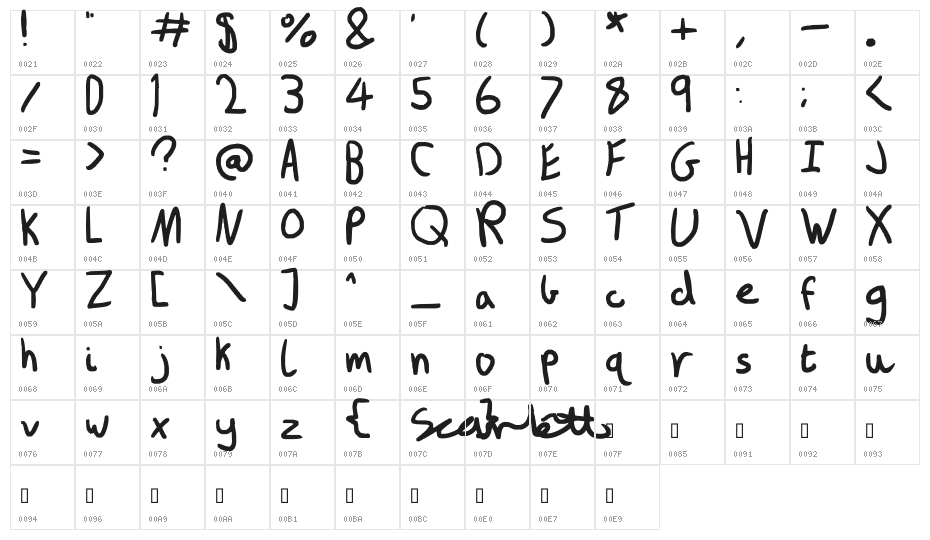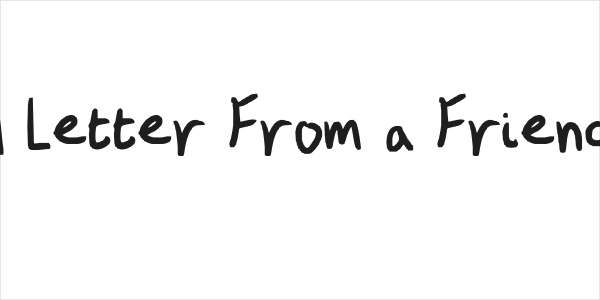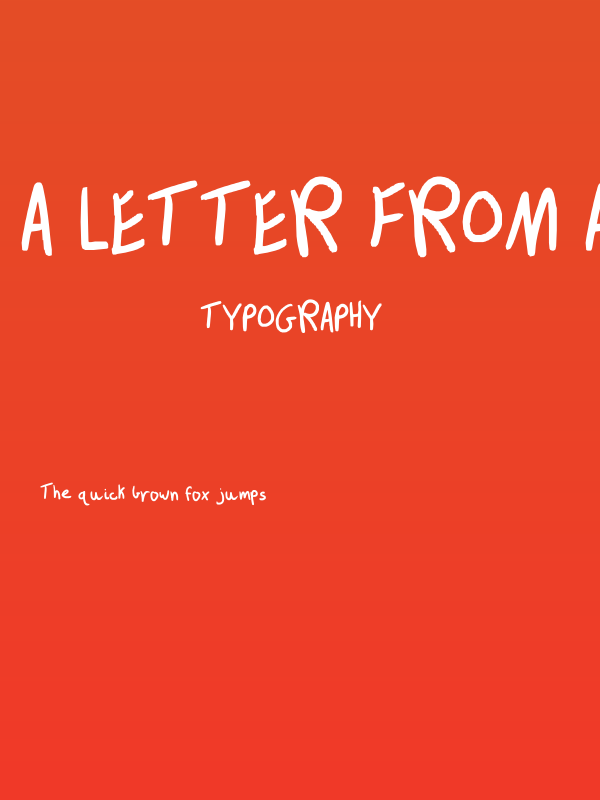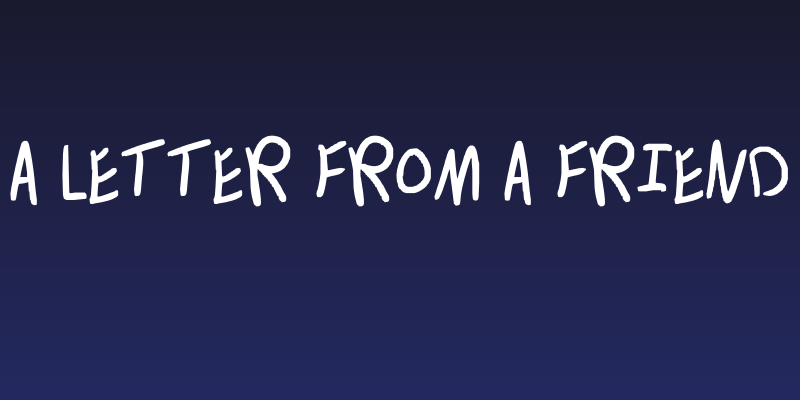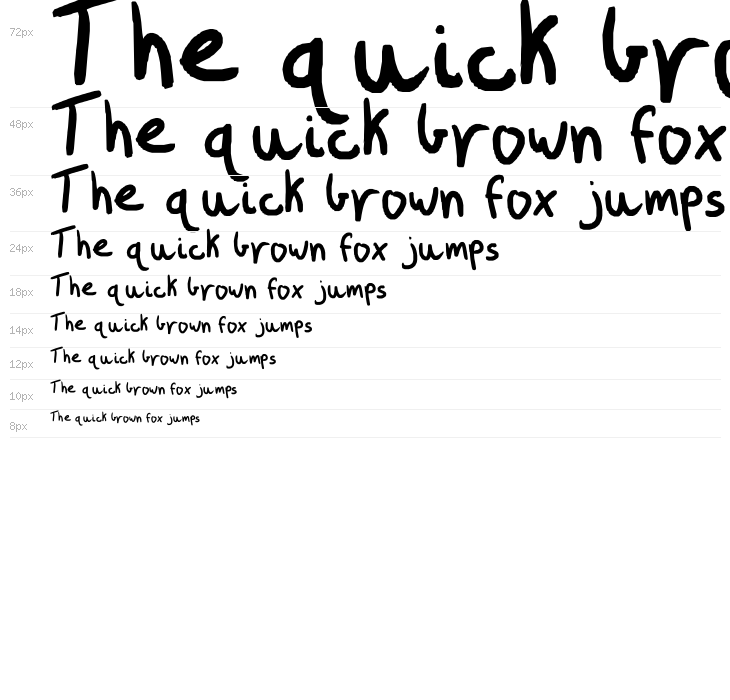
A Letter From a Friend Font
A Letter From a Friend Description
This font exudes a casual and friendly handwritten style, characterized by its playful and informal appearance. The letters are slightly irregular, giving it a personal touch reminiscent of a note from a friend. The strokes are bold and consistent, with a slight variation in thickness that adds to its charm. The uppercase letters maintain a uniform height, while the lowercase letters exhibit a slight slant, enhancing the handwritten feel. Numbers and special characters are crafted with the same playful style, making them easily readable yet distinctive. This font is perfect for projects that require a personal and approachable tone.
| Overall Style | Casual, Friendly |
| Use Case | Headlines, Informal text, Personal notes |
| Proposed Projects | Ideal for greeting cards, personal notes, informal invitations, and children's book illustrations. |